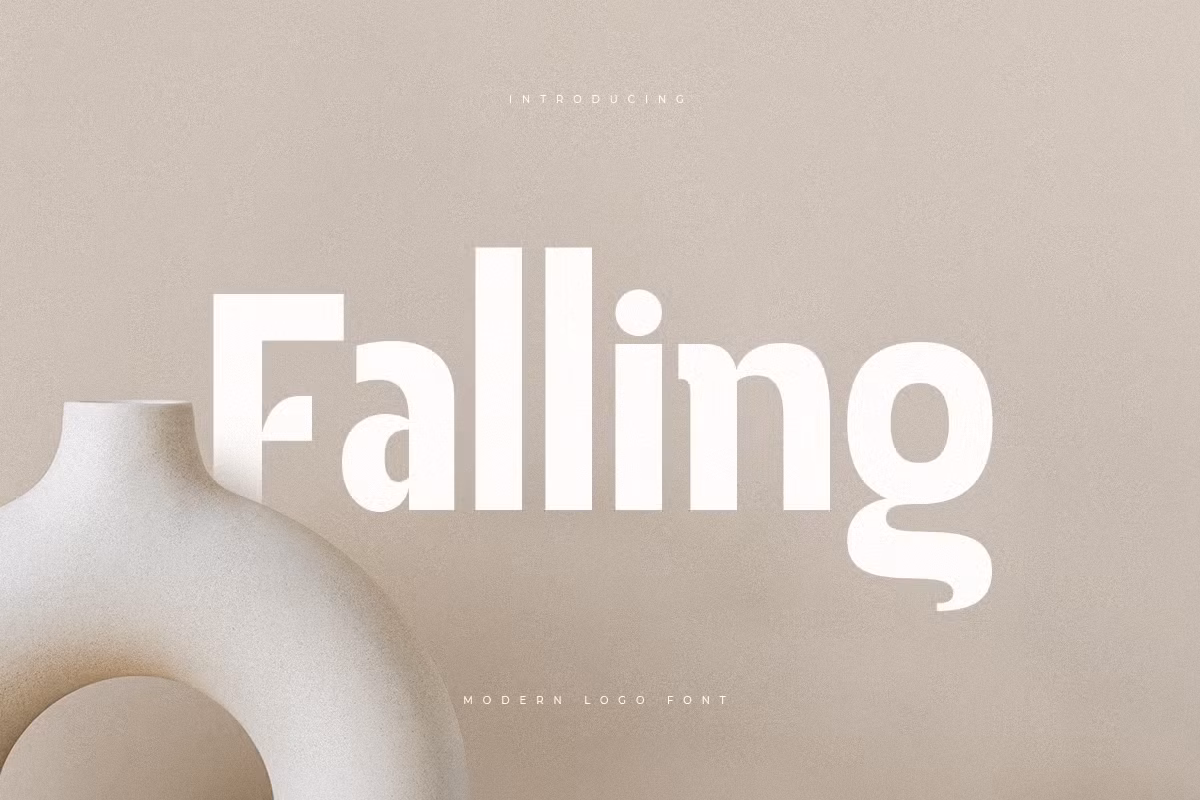
The Falling - Modern Logo Font Free Download is a sleek and contemporary typeface designed specifically for logo creation and brand identity. With its clean lines and modern design, this font is perfect for creating bold and stylish logos, branding materials, and promotional content. Please note, for commercial use, a license must be purchased. You can download it for free for testing purposes.
With its minimalist yet striking design, the Falling - Modern Logo Font Free Download is ideal for projects that need a modern, professional, and sophisticated look. Whether you're working on a tech brand, fashion logo, or any creative project that requires a fresh, bold touch, this font will make your designs stand out.